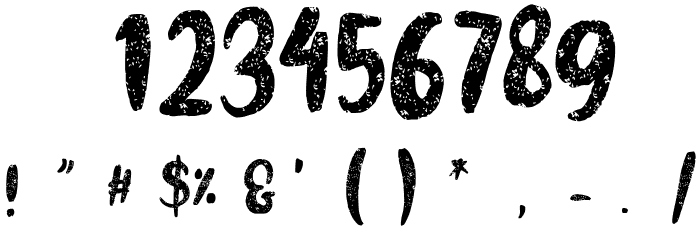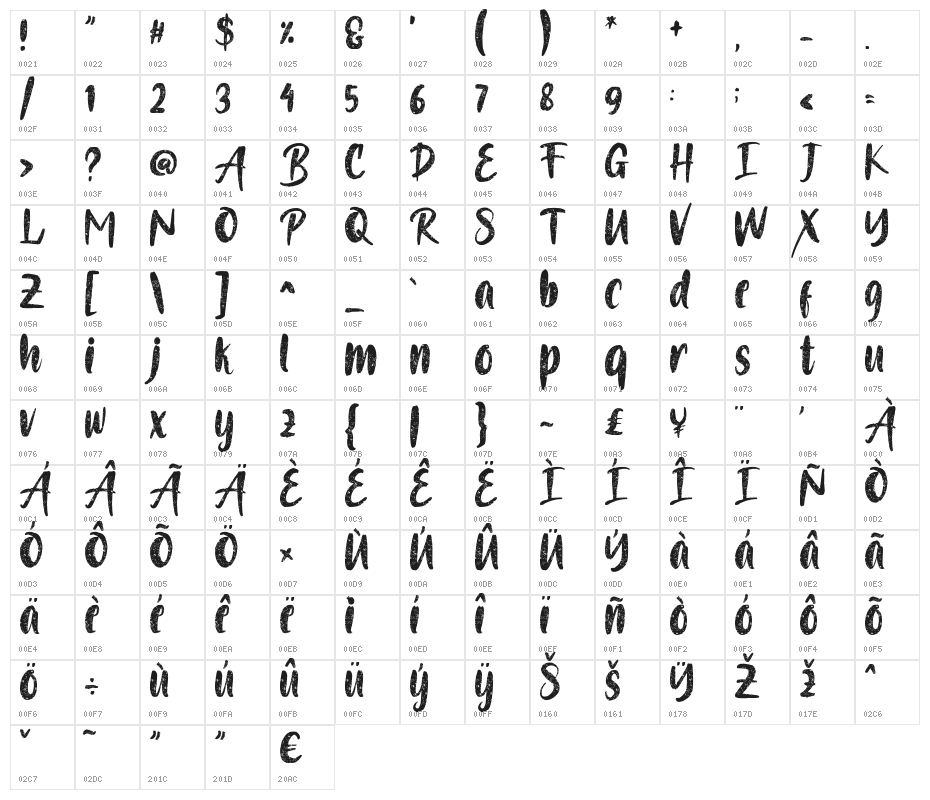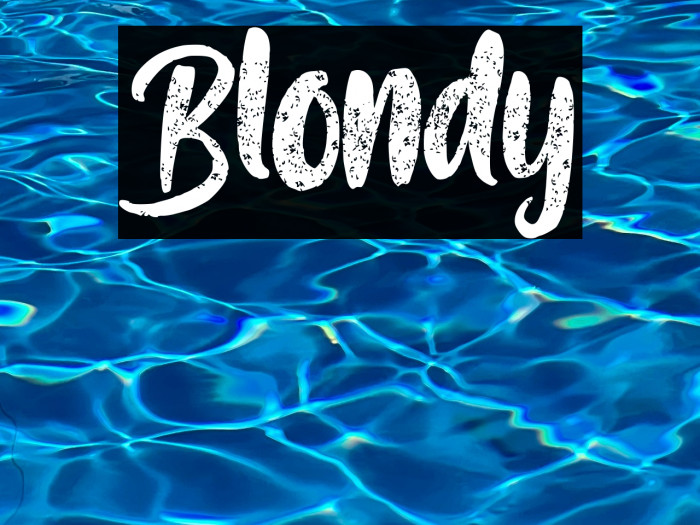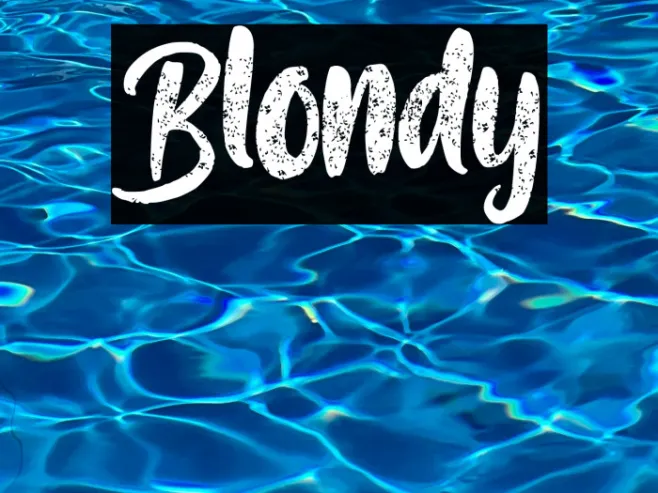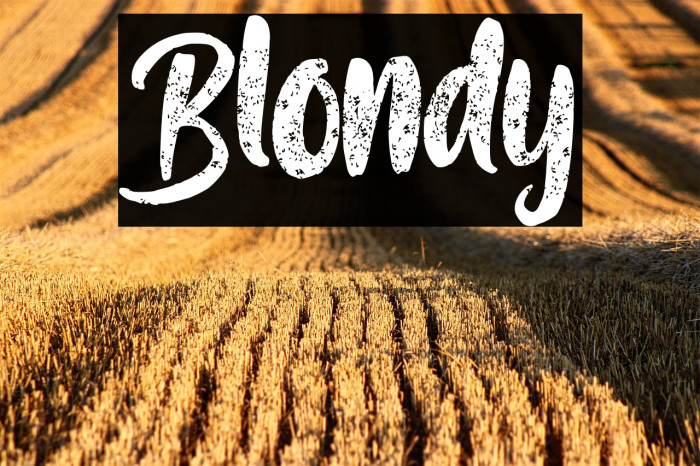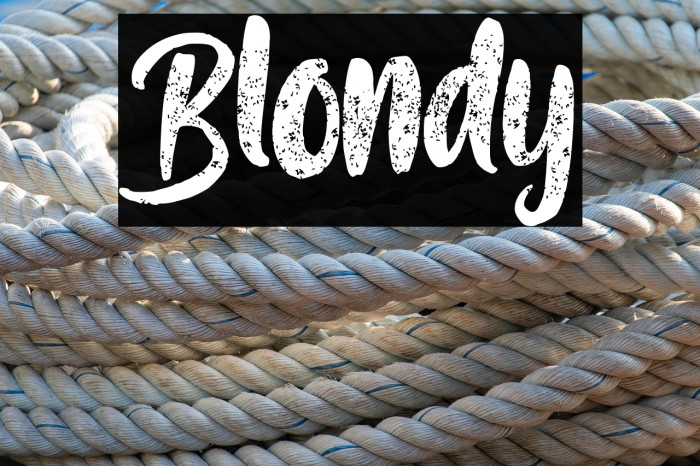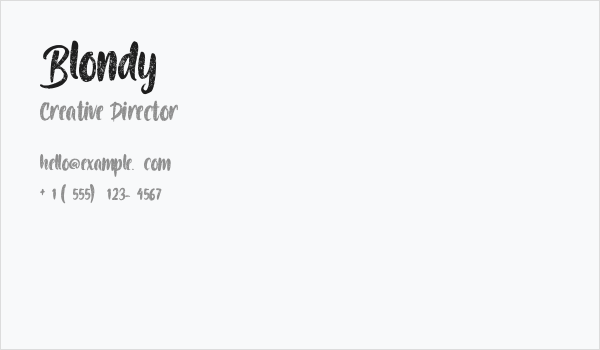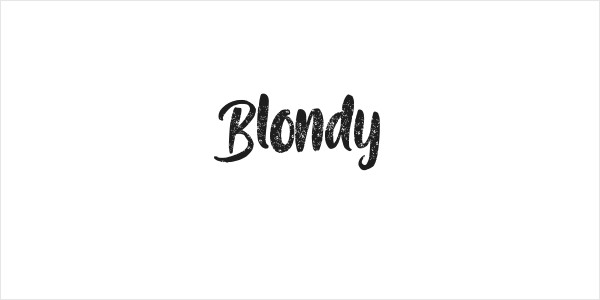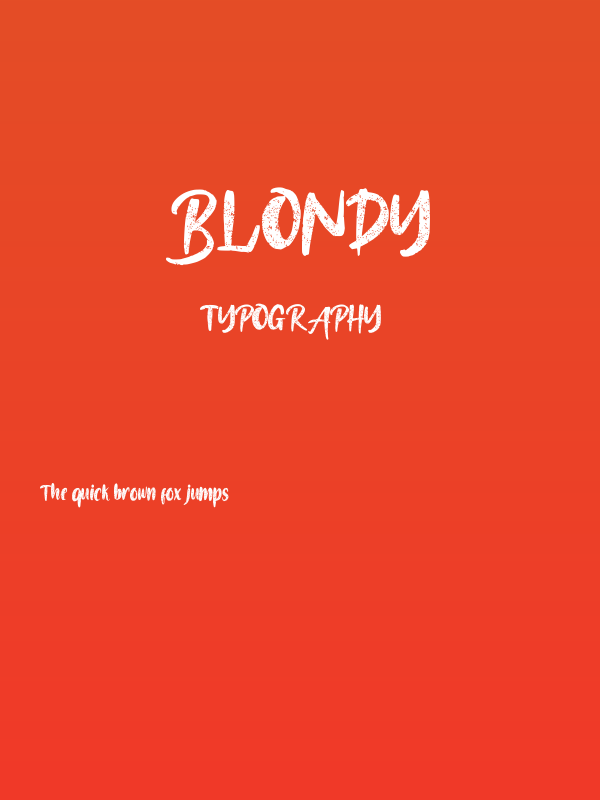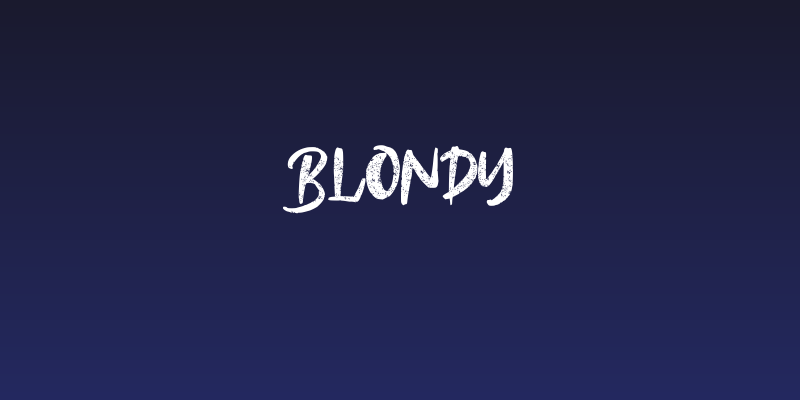
Blondy Font
Blondy Description
This font features a bold, textured style with a hand-painted appearance, giving it a rustic and artistic feel. The letters are slightly irregular, adding to the handcrafted aesthetic. The uppercase and lowercase characters are well-balanced, with a consistent stroke width that maintains readability despite the distressed texture. The numerals and special characters follow the same design, ensuring a cohesive look across all elements. This font's unique style makes it stand out, perfect for projects that require a touch of creativity and individuality.
| Use Case | Logos, Posters, Branding |
| Proposed Projects | Ideal for branding, posters, packaging, and creative projects that require a distinctive and artistic touch. |